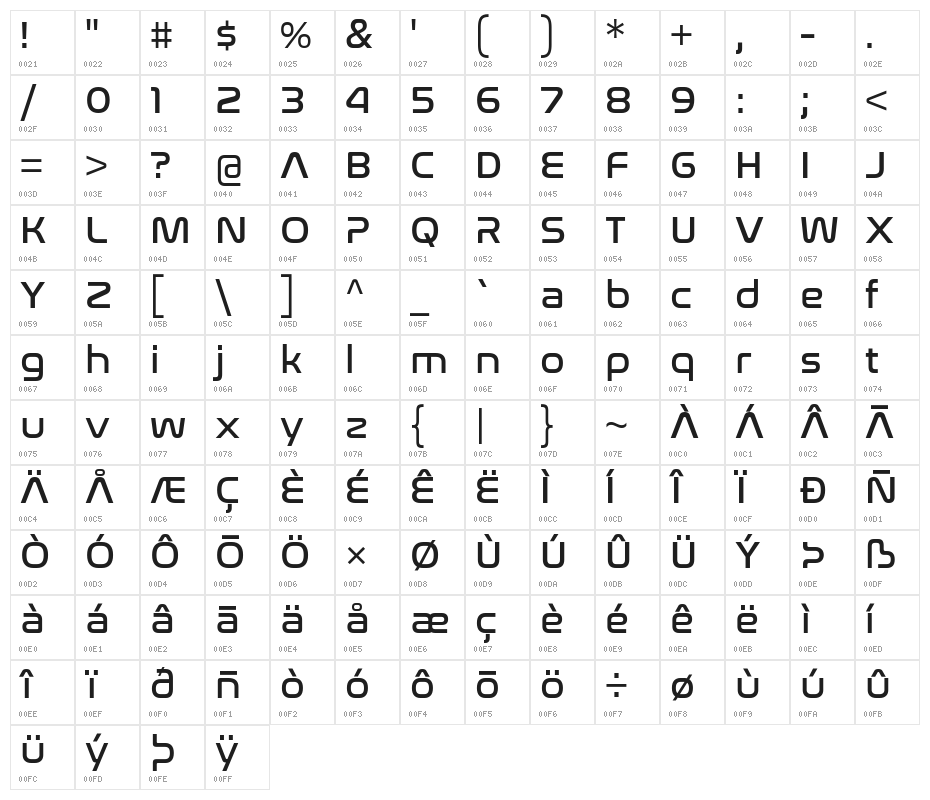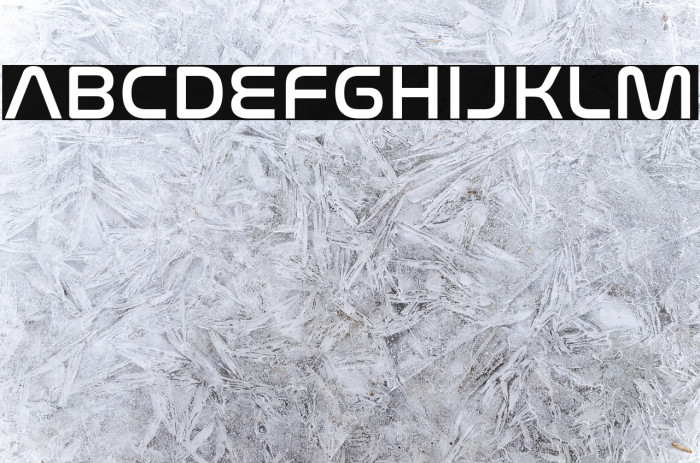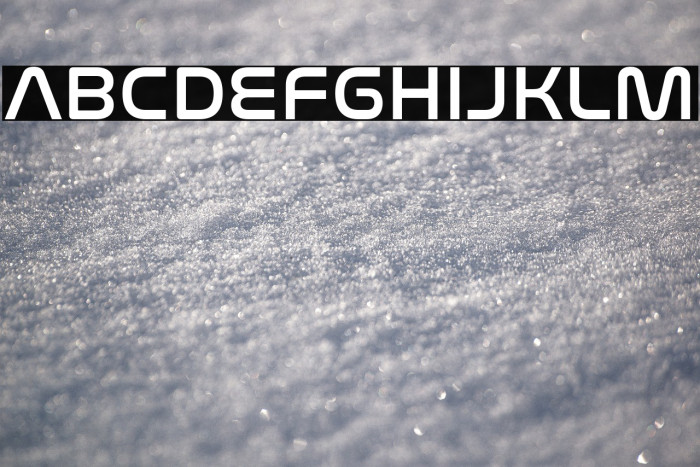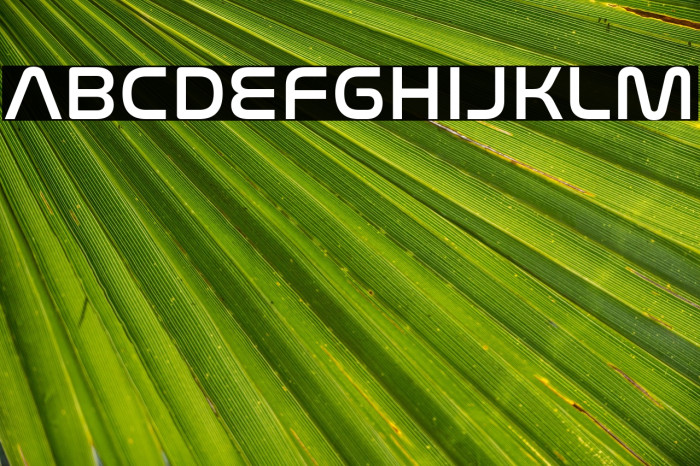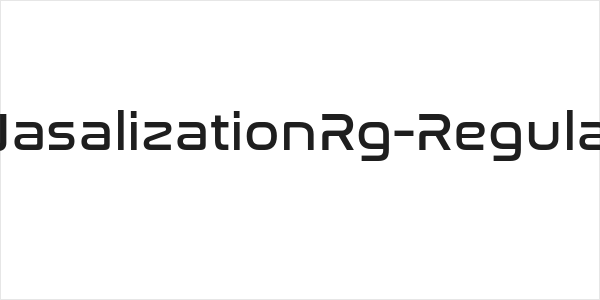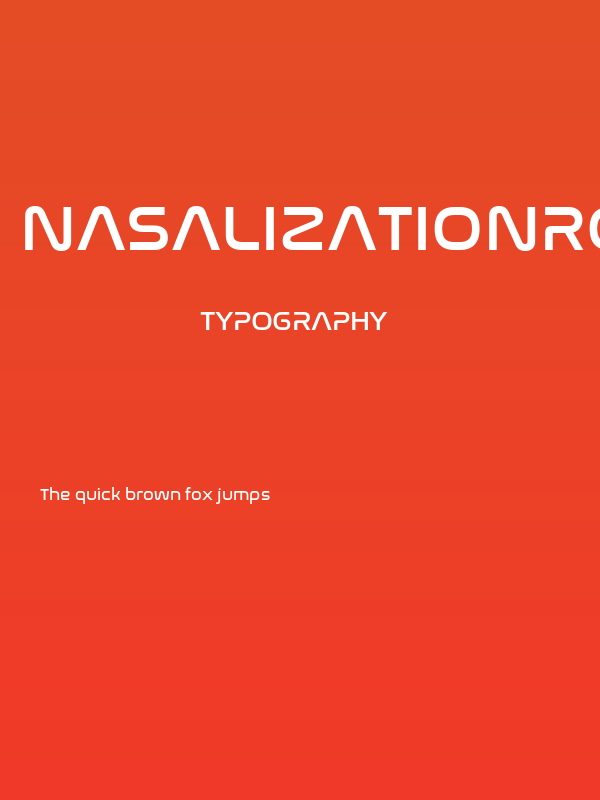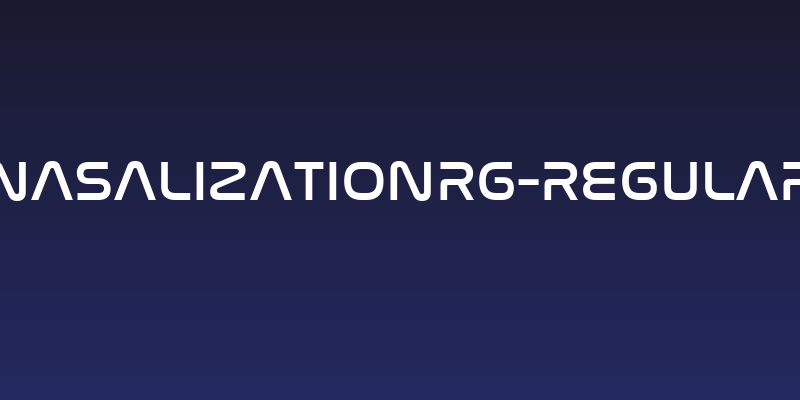
NasalizationRg-Regular Font
NasalizationRg-Regular Description
This font features a modern, geometric design with smooth curves and a clean, minimalist aesthetic. The characters are well-proportioned, with a consistent stroke width that gives it a uniform appearance. The uppercase letters have a distinct, slightly rounded shape, while the lowercase letters maintain a similar style, ensuring readability and cohesion. The numerals are clear and easy to distinguish, making them suitable for various applications. Special characters are included, matching the overall style of the font, which is both functional and visually appealing.
| Proposed Projects | Ideal for tech branding, modern web design, and digital interfaces. |